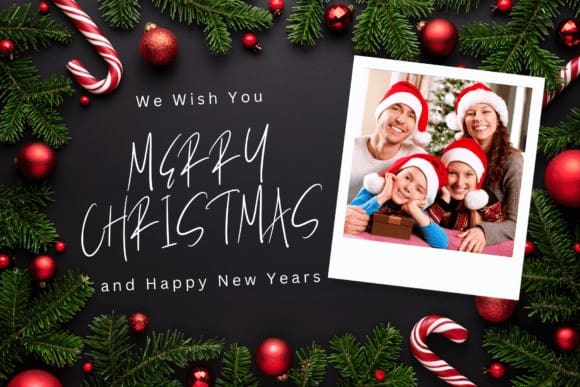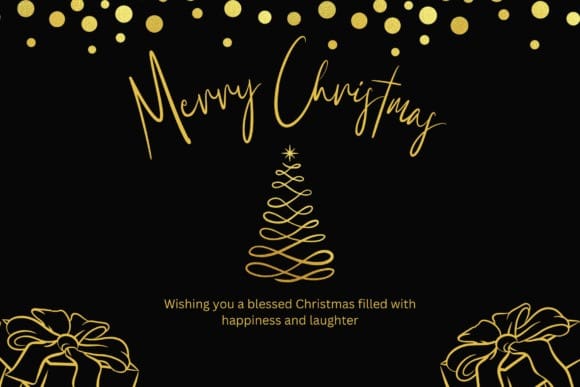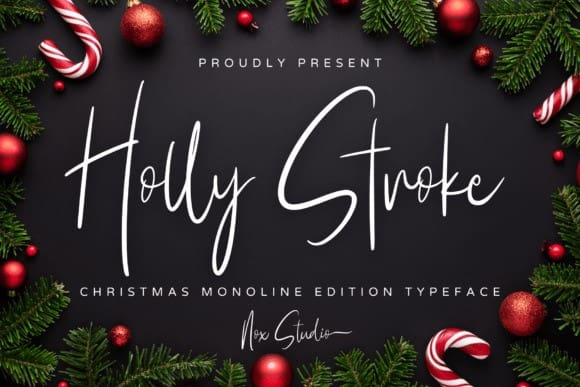
Holly Stroke Font
Holly Stroke Font – a gracefully sophisticated monoline script font, couched in natural allure and handmade charm. With its strokes guided by a human touch, it exudes an organic fluidity that effortlessly enhances any design project it graces. Spotlight features of this font include an array of ligatures and swashes, engineered intricately to simplify and elevate your design process. Holly Stroke doesn’t just render aesthetics, it delivers a beautiful balance of form and function.